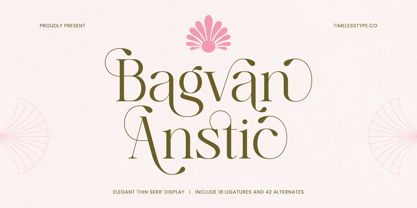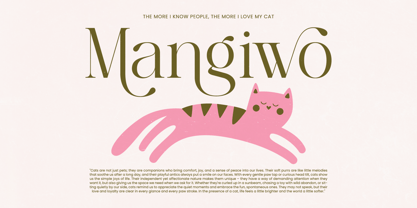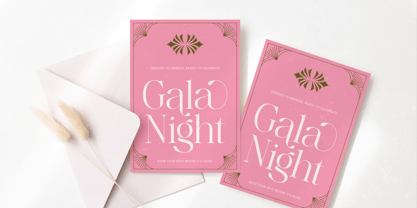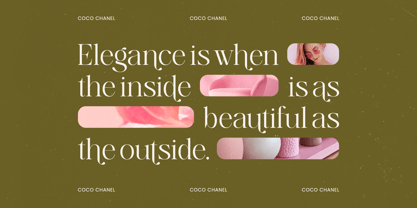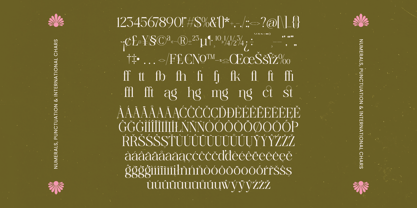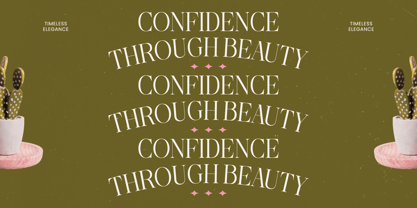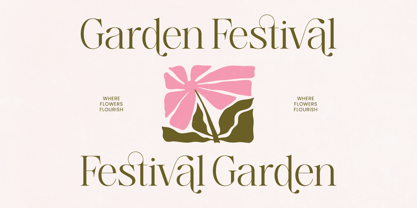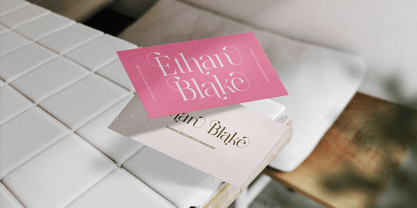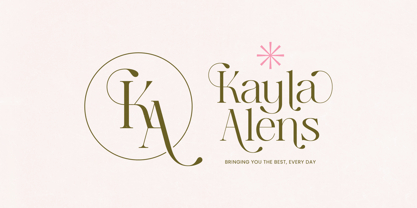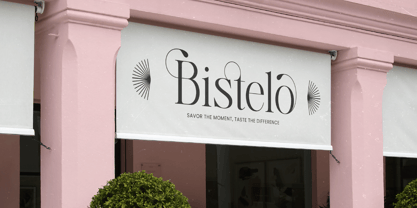
Bagvan Anstic
by Timelesstype Studio
The Bagvan Anstic Font Family was designed by Heru Utama Putra and published by Timelesstype Studio. Bagvan Anstic contains 2 styles and family package options.
Bagvan Anstic is an elegant thin serif display font designed with refined curves and graceful letterforms. The typeface combines classic serif structure with decorative swashes and stylish terminals, creating a sophisticated and expressive typography style. This font is crafted for designers who want a luxurious and elegant aesthetic in their typography. The thin strokes and balanced proportions give it a modern editorial look while the decorative elements add personality and artistic charm. Bagvan Anstic includes a set of ligatures and alternate characters that allow flexible typography compositions. These stylistic features help create unique wordmarks, refined headlines, and visually distinctive layouts. Its elegant structure makes the font ideal for high-end design projects where beauty, sophistication, and visual identity are important.